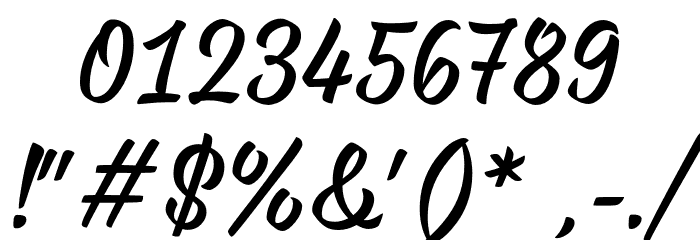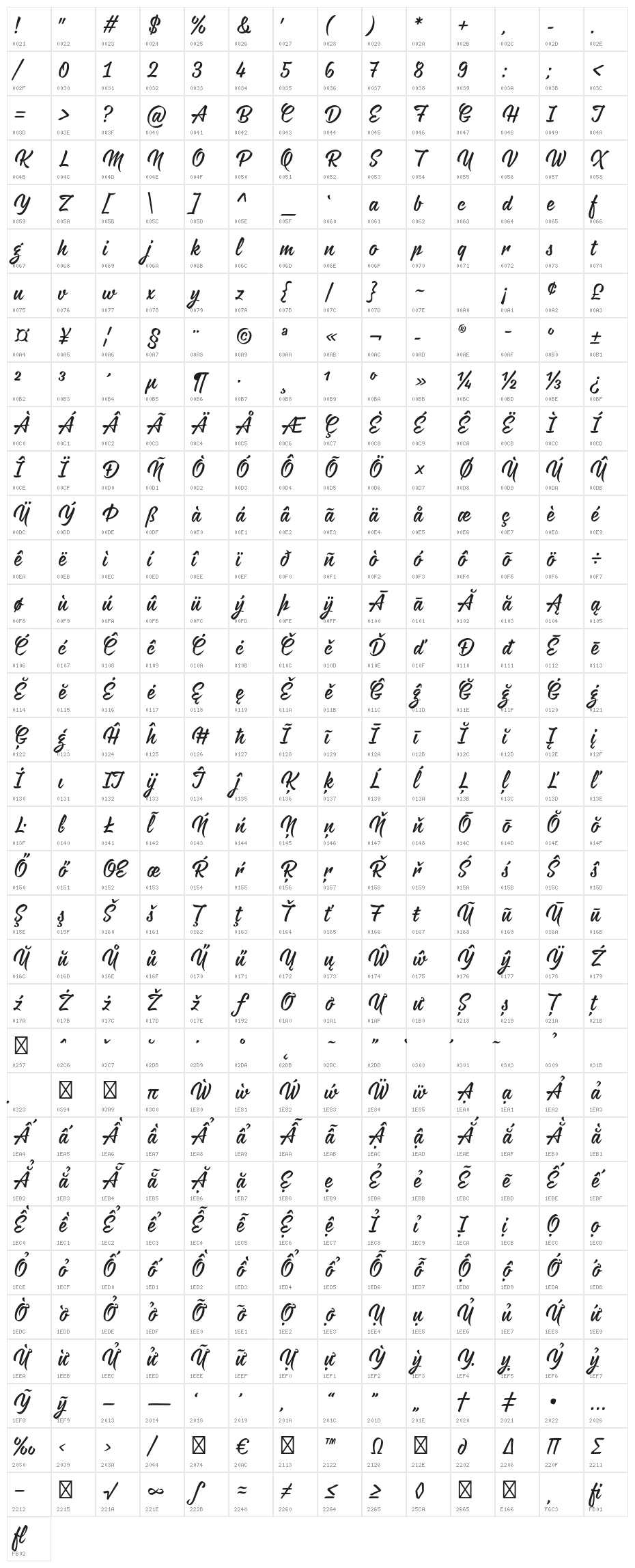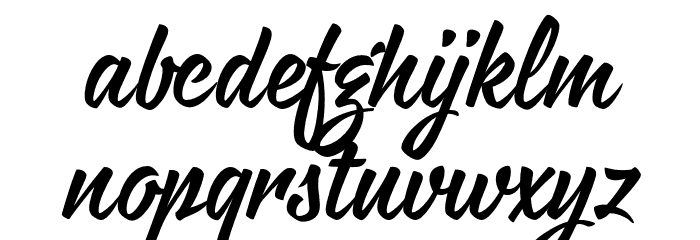
iCielRukola Font
iCielRukola Description
This font features a dynamic and flowing script style, characterized by its elegant and cursive letterforms. The uppercase letters exhibit a bold and confident presence, with sweeping curves and a slight slant that adds a sense of motion. The lowercase letters maintain a harmonious flow, with smooth connections between characters, enhancing readability while preserving the font's artistic flair. Numbers and special characters are crafted with the same attention to detail, ensuring consistency across all glyphs. The overall design exudes a sense of sophistication and creativity, making it suitable for projects that require a personal and artistic touch.